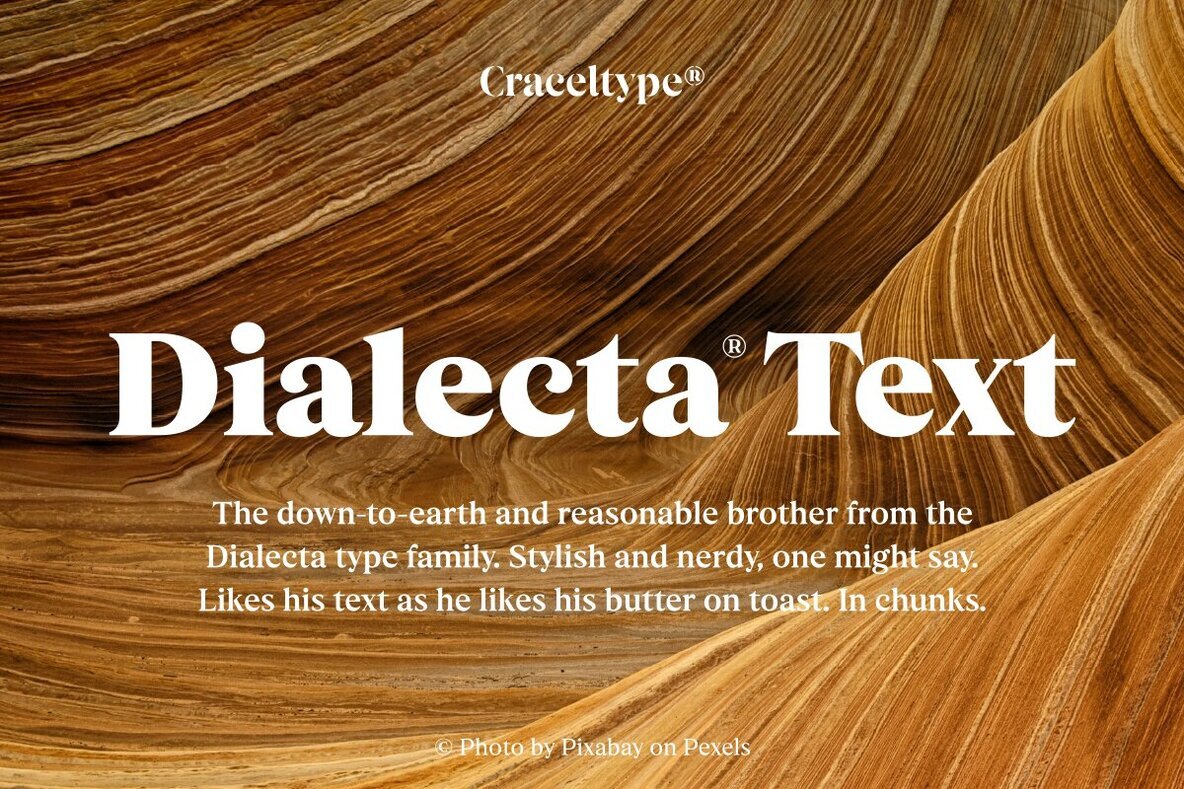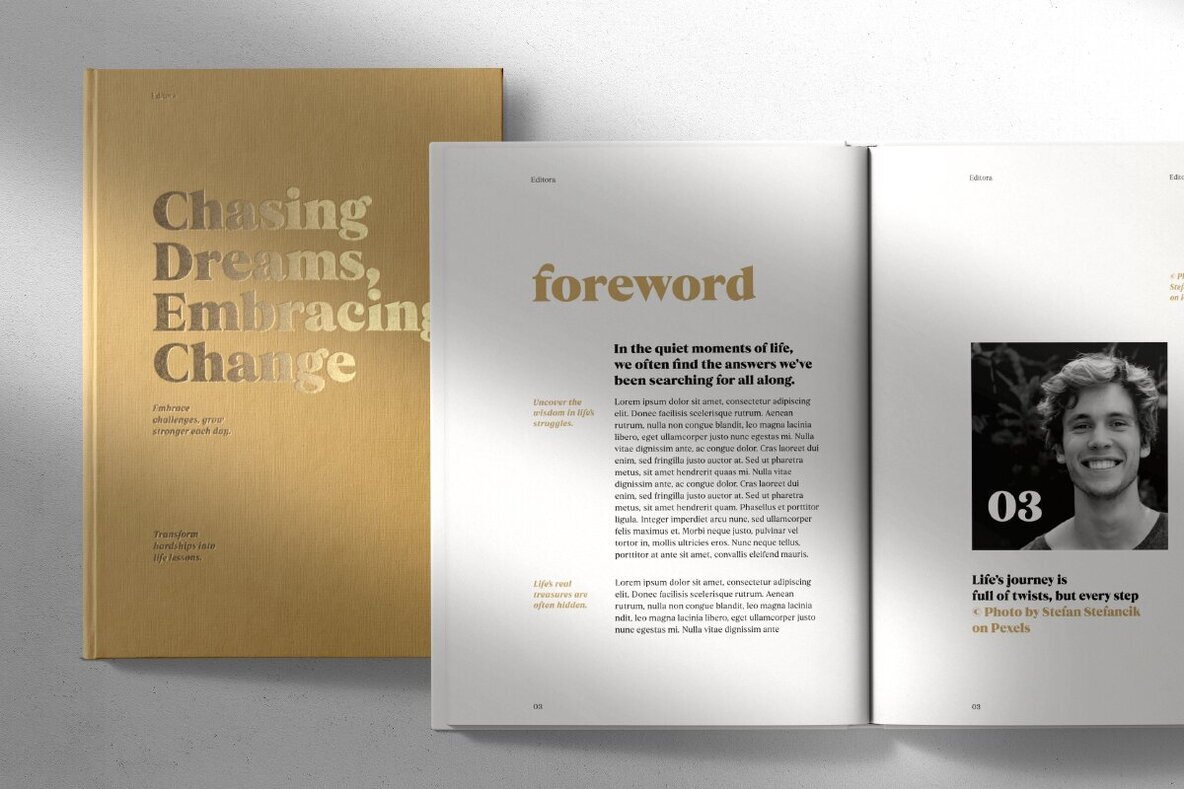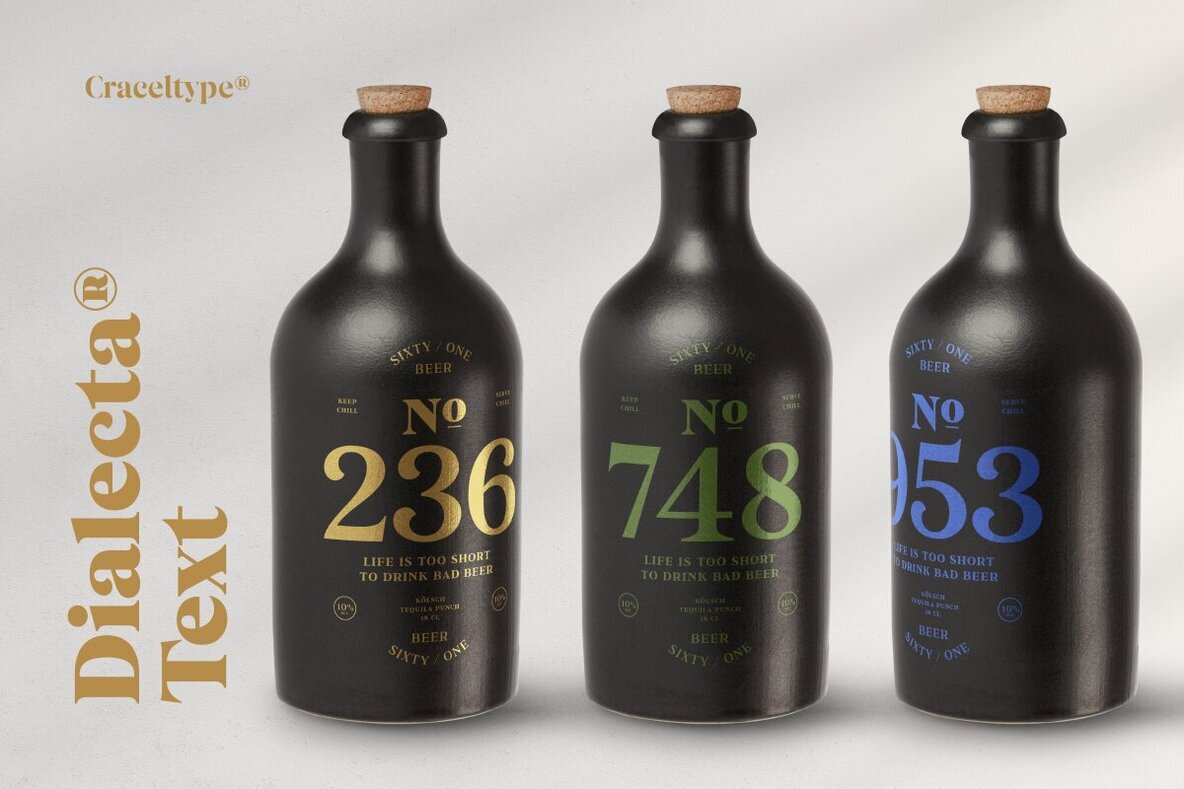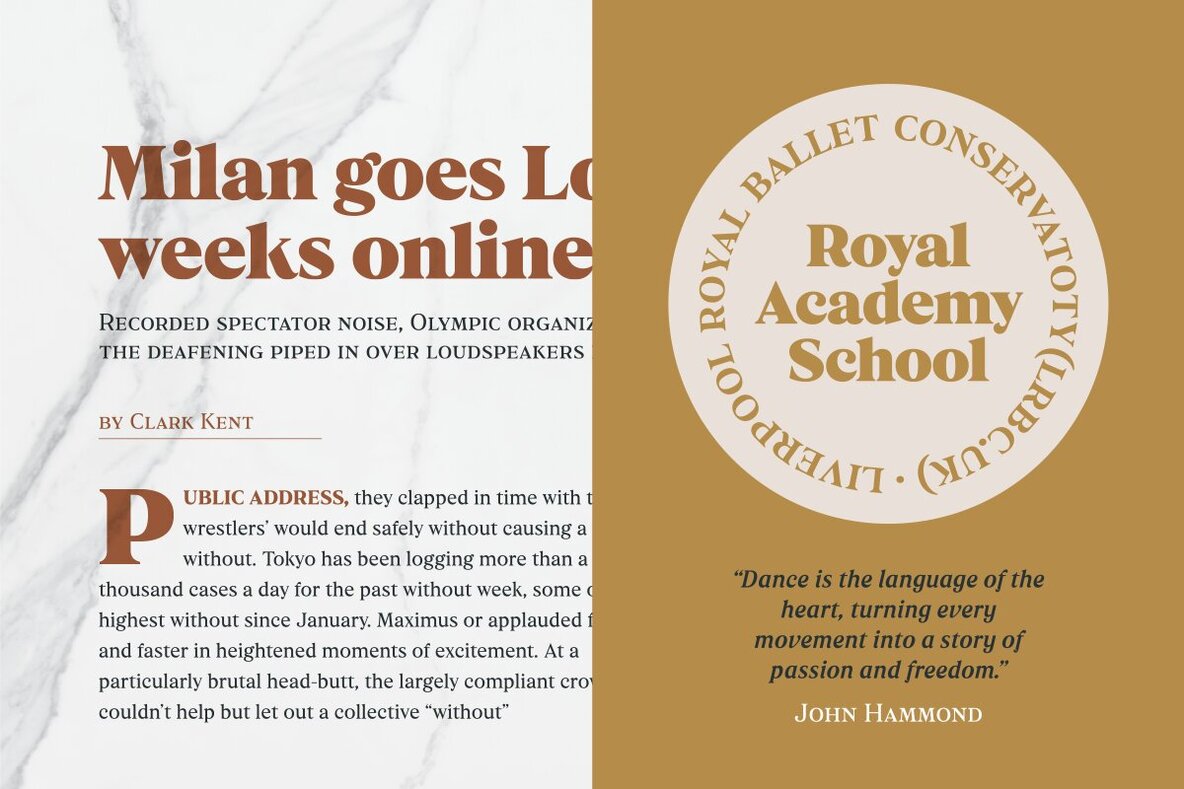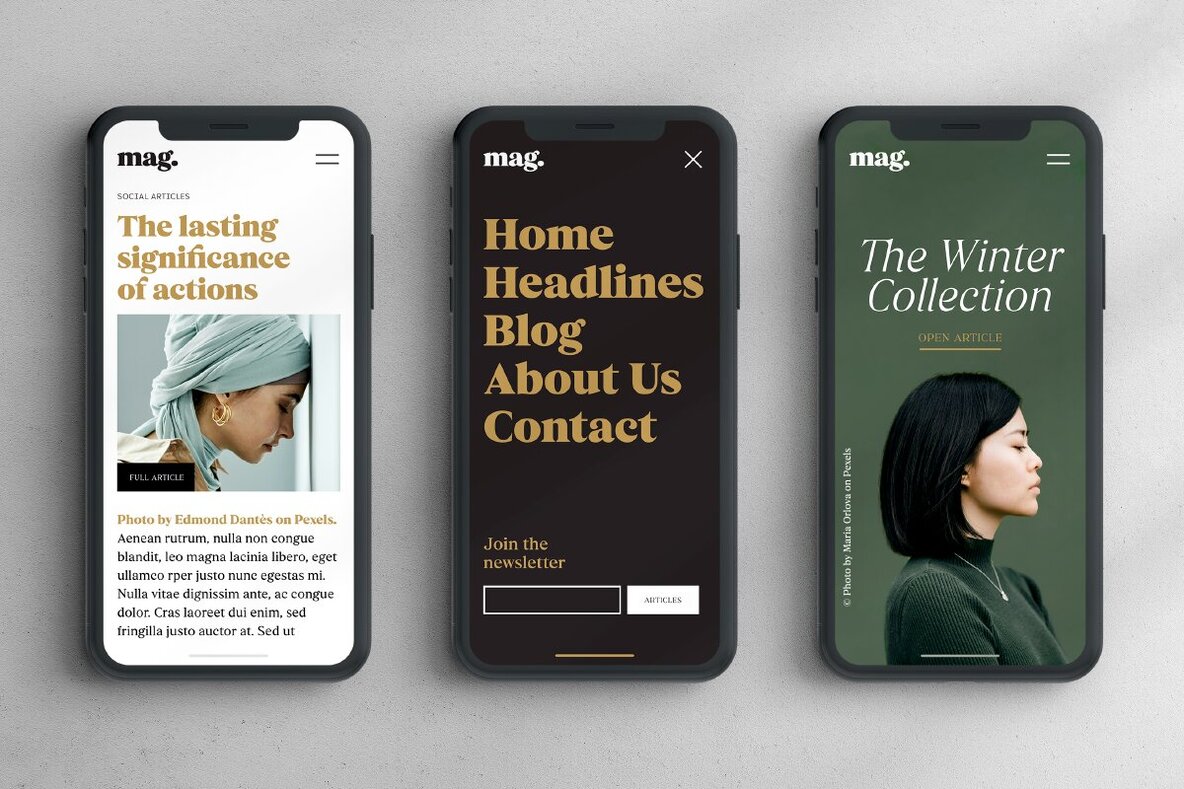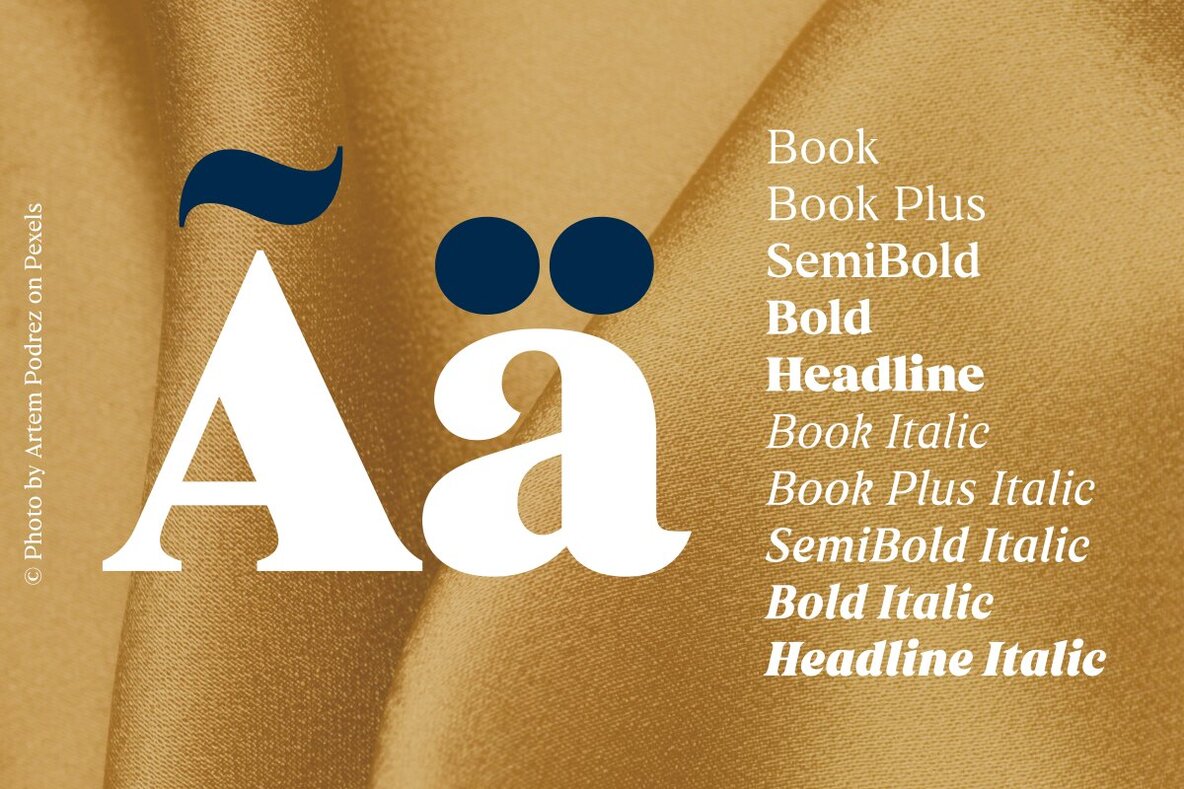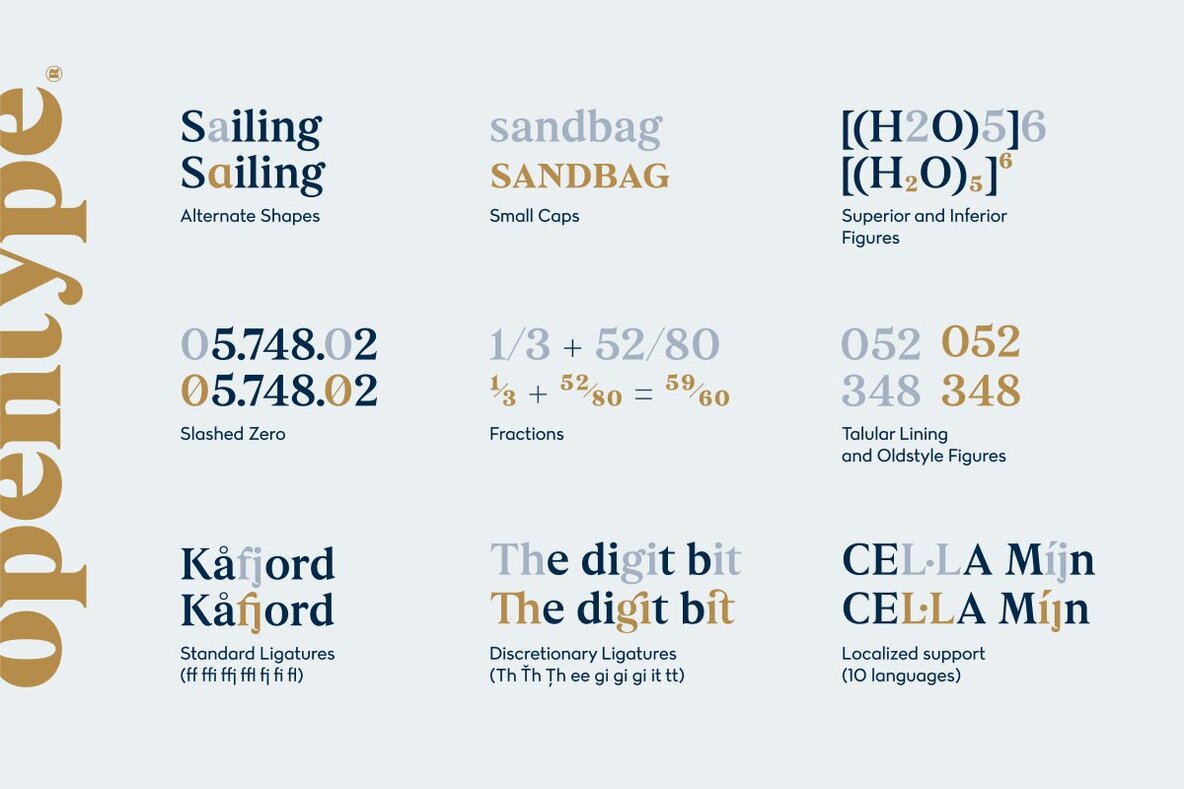
Dialecta Text Font
Dialecta Text emerges from the geometric shadows of its brother, Dialecta Display, offering a counterpart that values moderation and subtlety. With its inherent delicacy, this typeface facilitates effortless readability even in dense text layouts, maintaining clarity at smaller sizes. Boasting a wider x-height and refined contrast, Dialecta Text promises versatility across diverse applications. Its ten meticulously crafted styles and extensive repertoire of over 950 glyphs per style accommodate more than 230 languages with ease.Dialecta Text: Geometric Inspiration for Intricate Texts